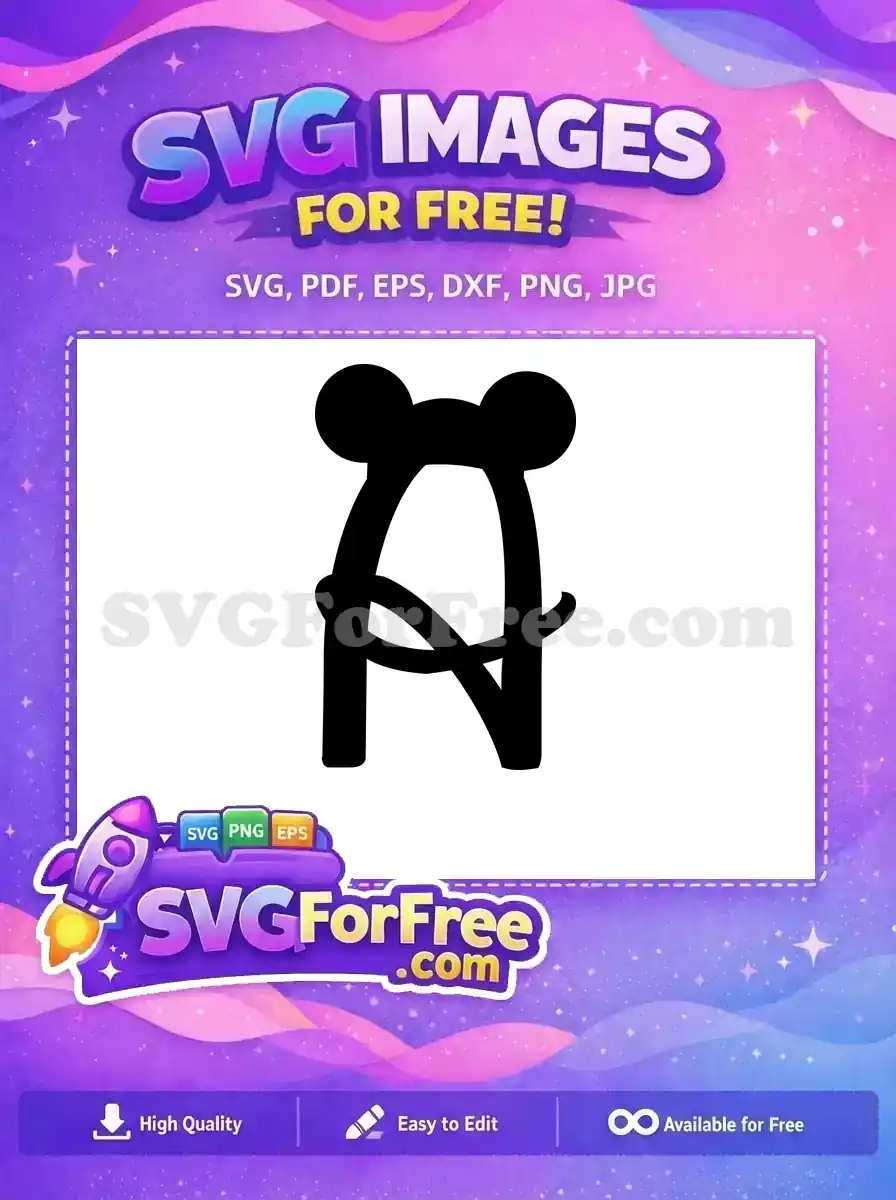
Free Mickey Ears Font Free Letter A Initial Free SVG – Instant Download
A bold and solid black stylized letter ‘A’ in a unique, modern script font. A complimentary vector graphic.
Free Mickey Ears Font Free Letter A Initial Free SVG